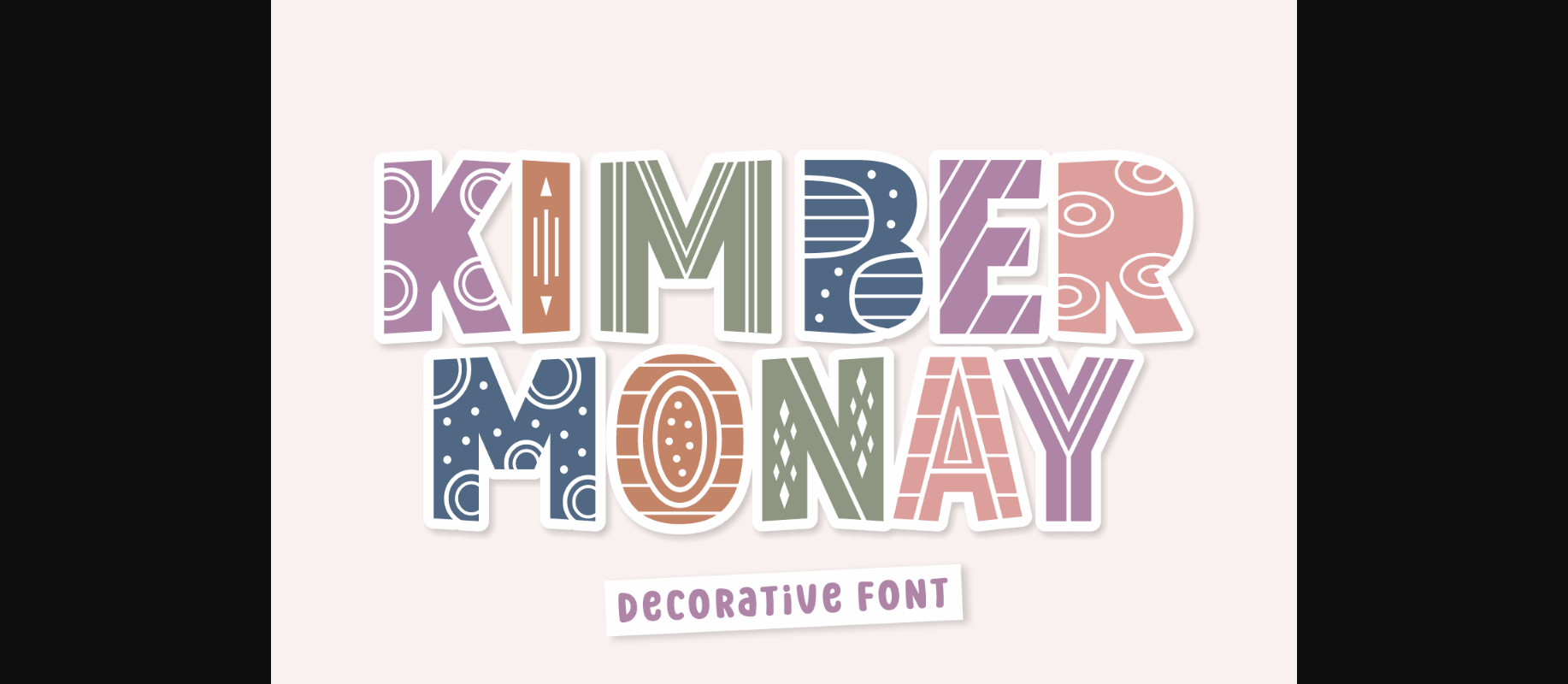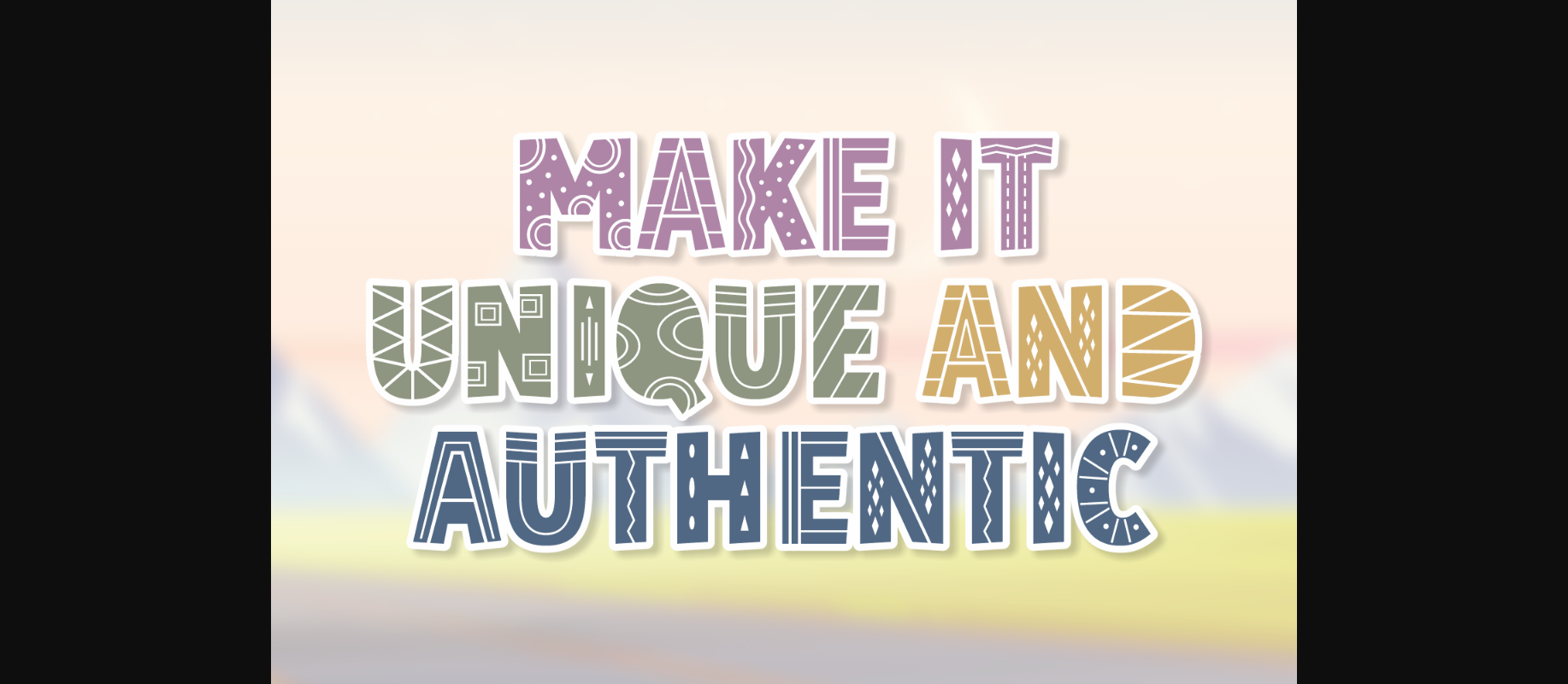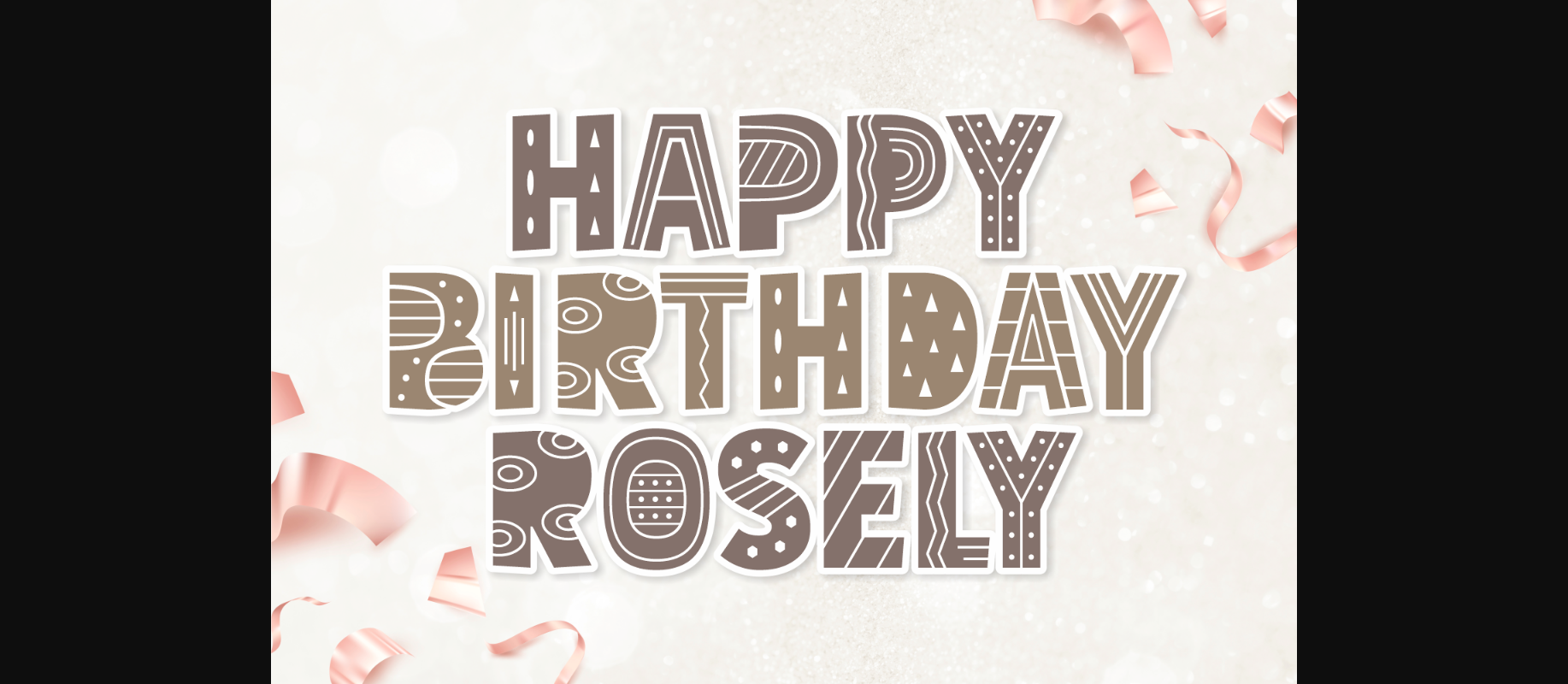
About Kimber Monay Font
Kimber Monay is a remarkably unique decorative font, perfect for projects that need to stand out from the others. It will look fantastic on birthday cards, banners, storybook covers, invitations, apparel designs, etc.